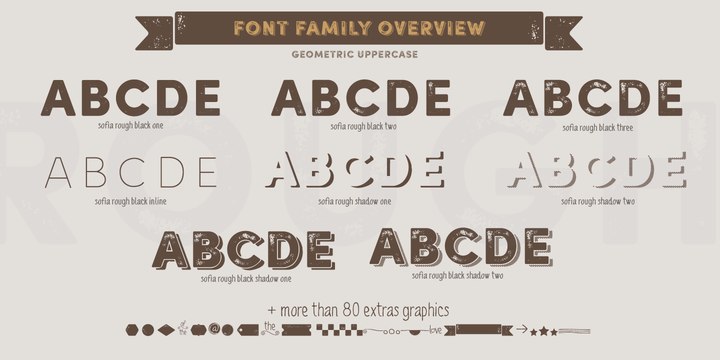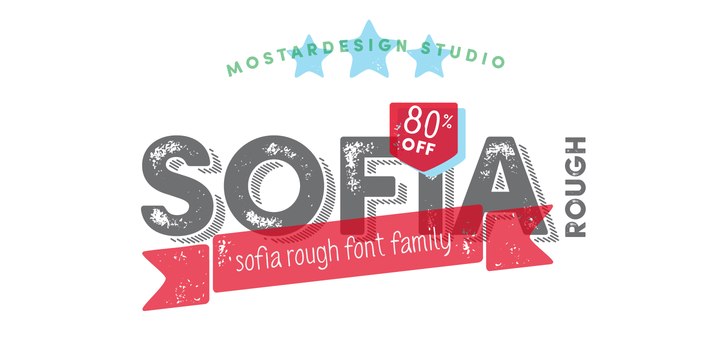
Sofia Rough Font
Sofia Rough Font is well-known for its text generator function. That is also known for its copy and paste feature and it’s available for free. It’s miles much like neither strictly geometric in stock; its sorts are created in fact so every man and the female man or woman is speedy and without trouble recognized. It‚Äôs designed to make the entire clients are without trouble the usage of it.
The choice of the proper font place of job artwork is as huge as consists of manifesto font or someone intelligently to a layout. Sofia Rough Font Free It has an immoderate, close to the top-notch appearance and is substantially identified for finishing performing leaders, at the trouble of a hint of beauty to emblems and which incorporates sophistication to signal designs. It exists to useful beneficial aid you to transport responsibilities off of your ordinary list and go along with the waft on. It seems as an optima font that may be used as an alphabet tattoo and language supergirls.